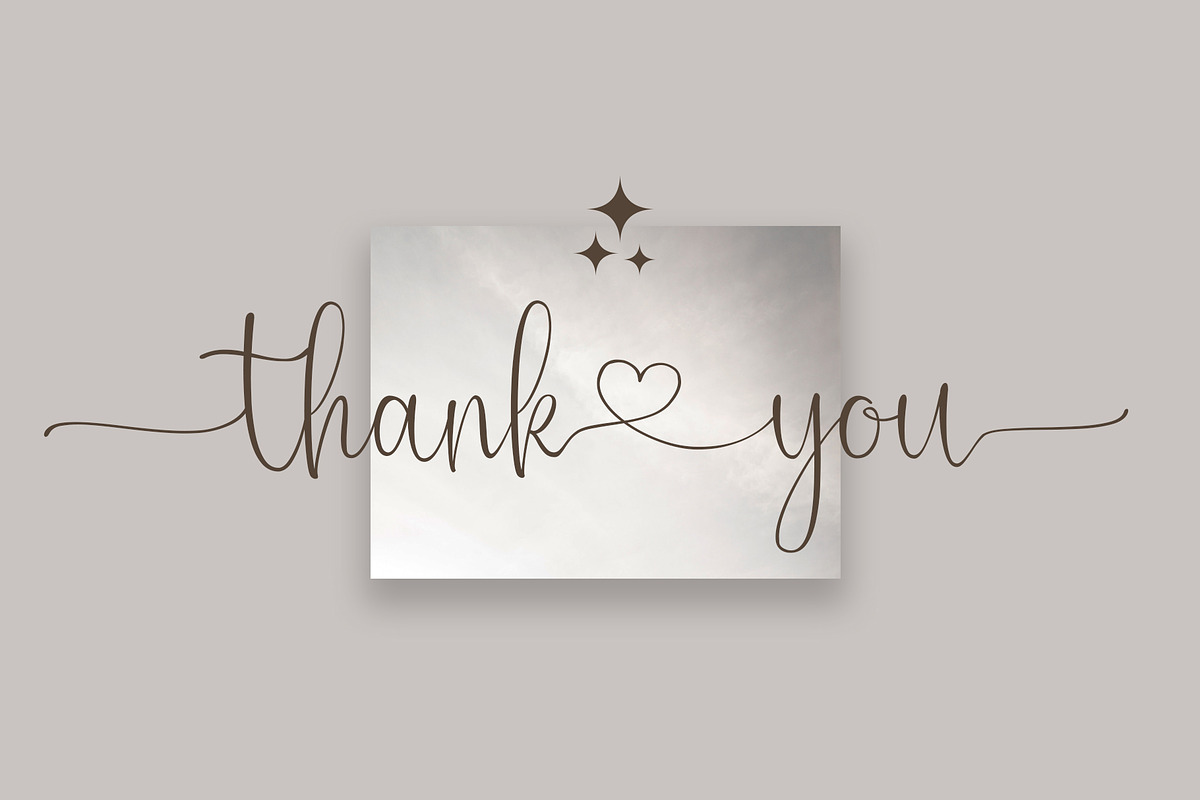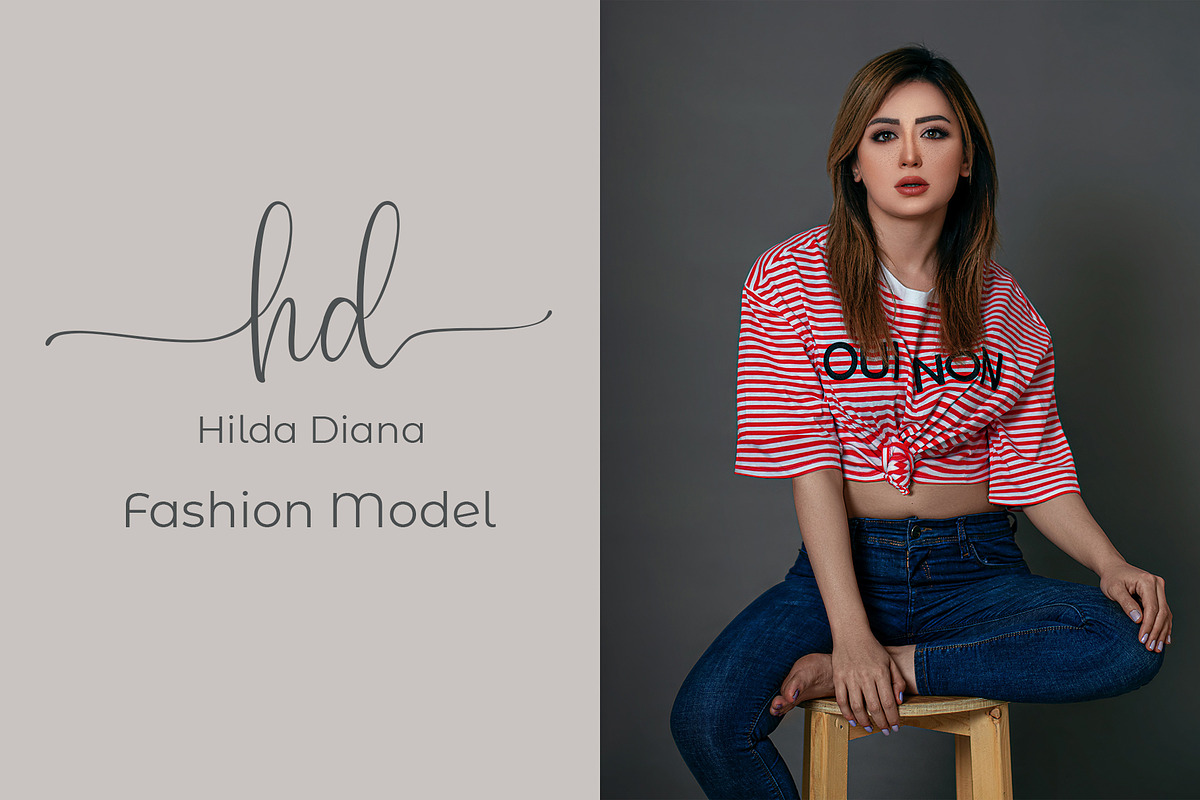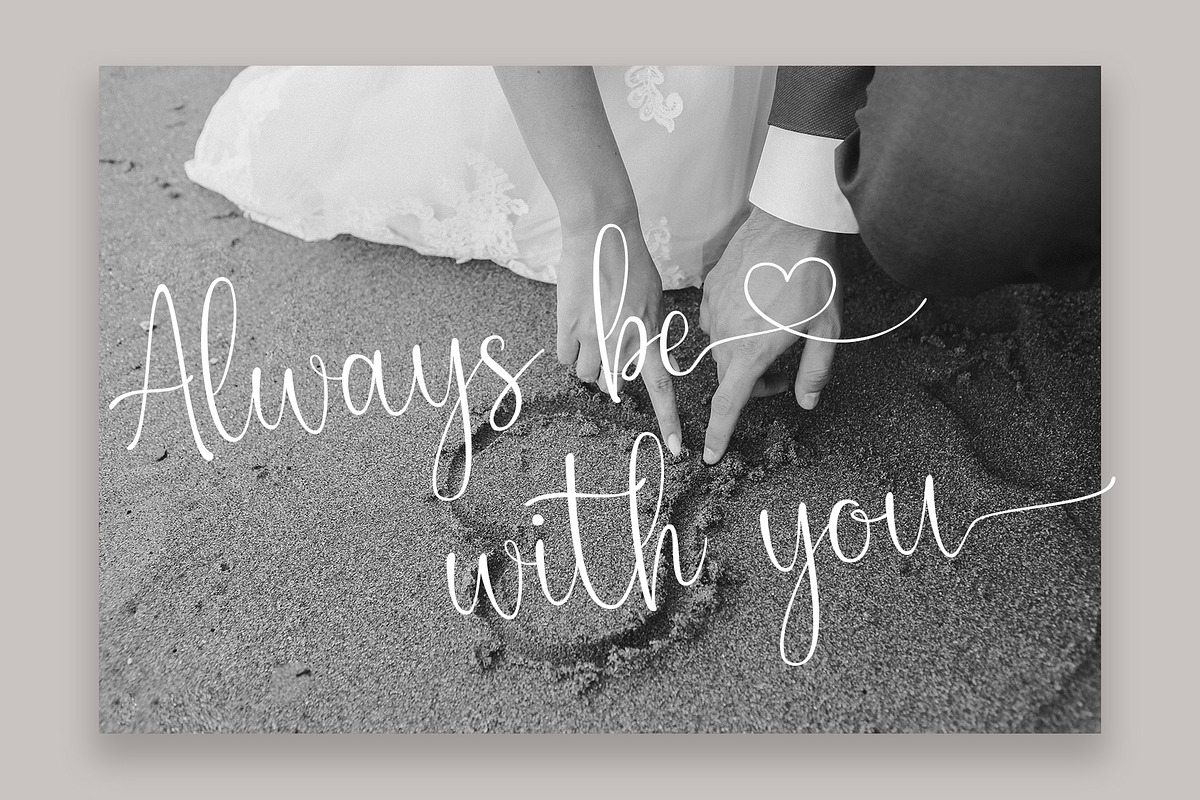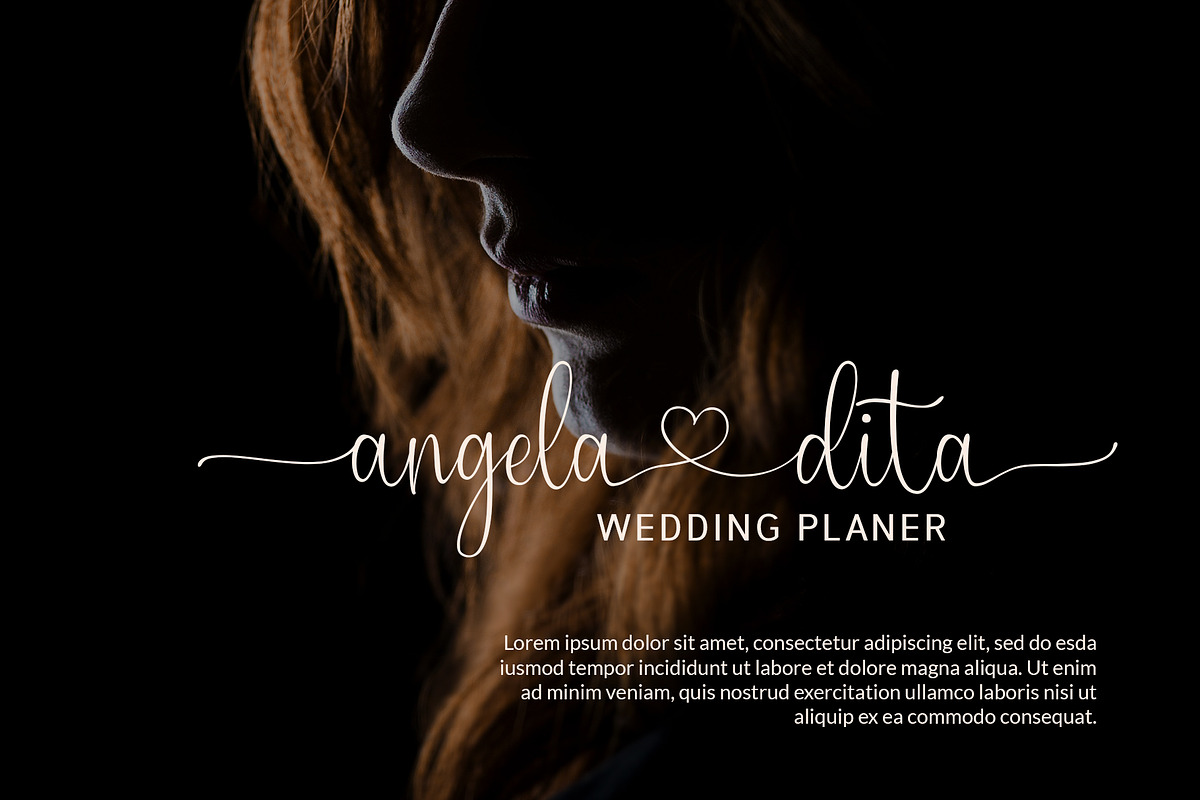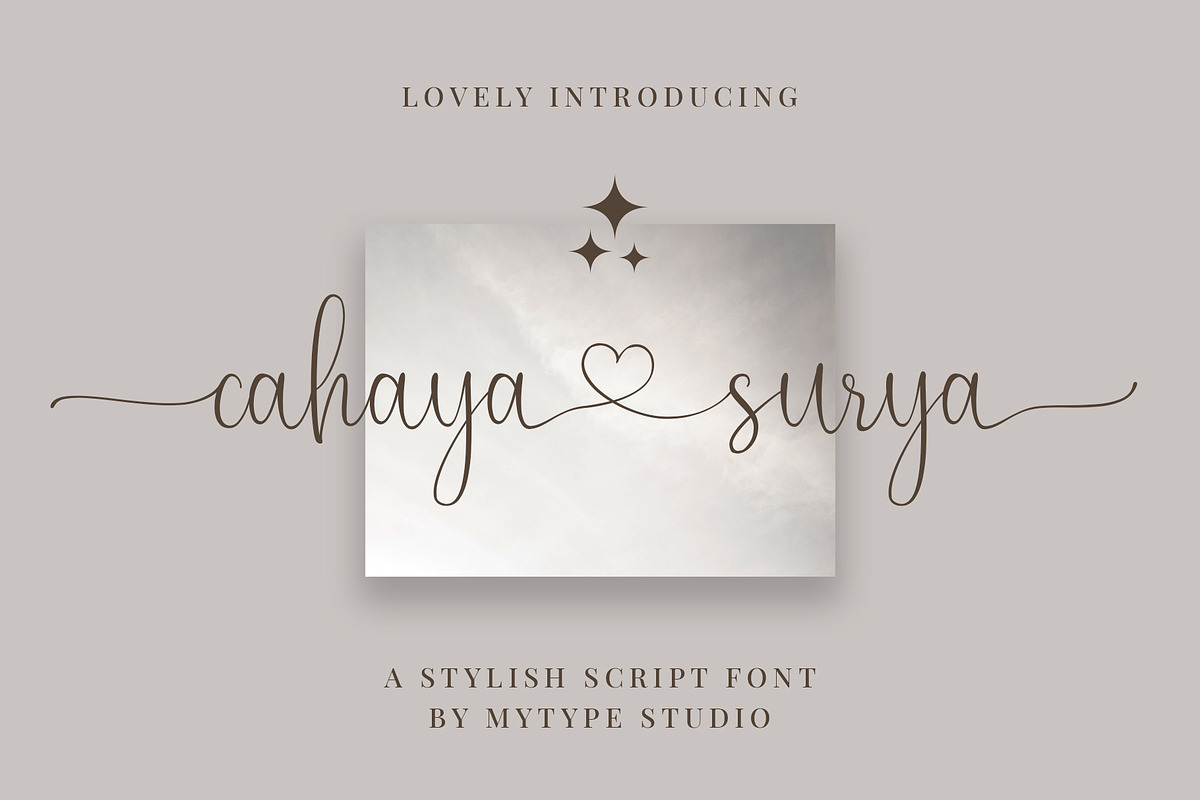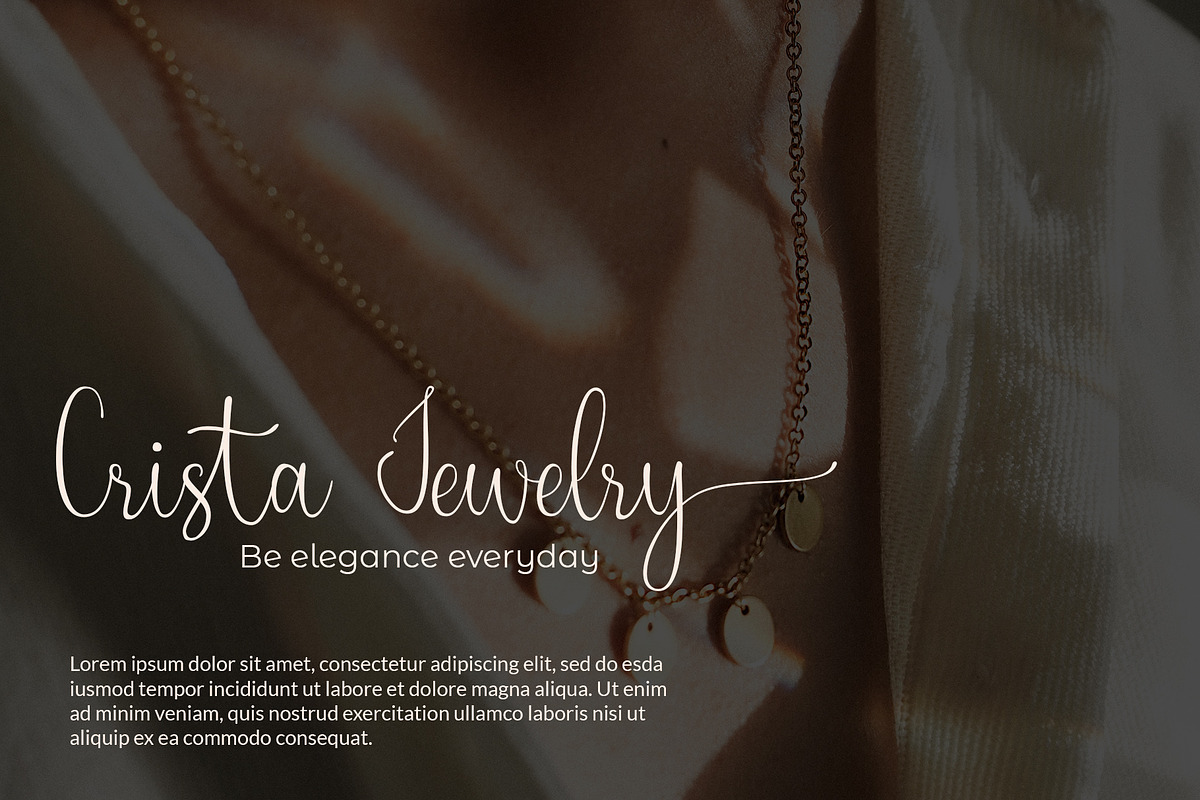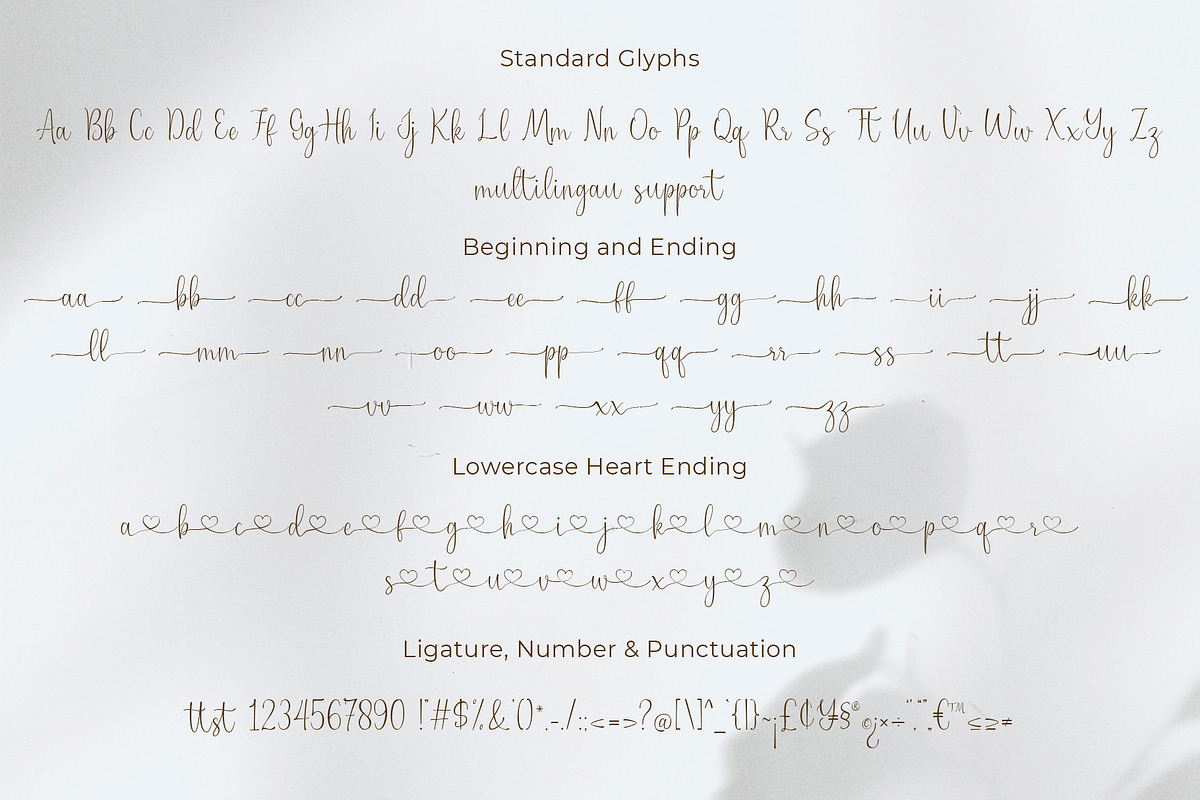
Cahaya Surya | Lovely Script Font
Cahaya Surya is script collection font with natural movement make looks elegant, classy and beauty for your project. Cahaya Surya is perfect for branding projects, logo, wedding designs, social media posts, advertisements, product packaging, product designs, label, photography, watermark, invitation, stationery and any projects that need handwriting taste.
This gorgeous font includes all lowercase and uppercase characters, numbers, punctuation, an array of standard ligatures and a selection of international characters as well.